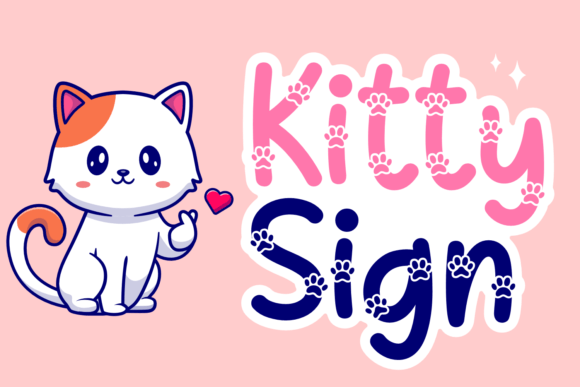
Meow-velous Typography: Discover the Whimsy of Kitty Sign Font
As a designer, have you ever been stuck trying to convey the perfect level of cuteness in a project? Maybe you’re working on a children’s book, a cat cafe’s branding, or a fun social media campaign. Whatever the case, I’m sure you’ve found yourself searching for the purr-fect font to bring a smile to your audience’s faces. That’s where the adorable Kitty Sign Font comes in – a delightful cat-themed decorative font that’s sure to capture hearts.
This PUA-encoded font is designed to add an extra touch of whimsy to any design project. With its little paws embellishing the characters, Kitty Sign Font is a valuable tool for designers looking to inject some playfulness into their work. Whether you’re a seasoned pro or just starting out, this font is sure to bring a smile to your face and make your designs stand out.
Kitty Sign Font Key Features
- Font Type: Kitty Sign is a display font, designed to be used for headings and titles.
- Character Set: Includes uppercase and lowercase letters, numbers, punctuation, and special characters.
- Unique Characteristics: Features a unique, playful design with rounded edges and whimsical details, making it perfect for children’s books, nursery decor, and other projects requiring a fun and approachable tone.
Kitty Sign Font Review
I’ve had the chance to work with the Kitty Sign Font, and I must say it’s a unique addition to any design project. ✨ One thing that stands out is its playful and whimsical feel, making it perfect for projects that need a touch of fun and personality. The font is also highly customizable, allowing you to adjust the color, size, and style to fit your needs.
Here are some of the key features that work well:
- Highly customizable with a range of options for color, size, and style
- Playful and whimsical feel that adds personality to any project
- Works well for titles, headings, and body text
- May not be suitable for formal or professional projects due to its playful nature
- Some users may find the font too bold or overwhelming
- May not be compatible with all devices or browsers
- Children’s party invitations
- Wedding invitations
- Food truck signs
Overall, I think the Kitty Sign Font is a great addition to any design project that needs a touch of fun and personality. While it may not be suitable for all projects, it’s definitely worth considering for those that need a playful and whimsical feel.
Tips for Getting the Most Out of the Kitty Sign Font
Experiment with different font sizes and colors to add visual interest to your design. Use the font in combination with other design elements, such as graphics and shapes, to create a unique look.
The Kitty Sign Font is perfect for creating playful and whimsical designs, such as:
Alternatives to Kitty Sign Font
Copperplate Script
Copperplate Script is a classic calligraphy font that mimics the look of handwritten copperplate script. It’s ideal for formal invitations, certificates, and other documents that require elegance and sophistication. Compared to Kitty Sign Font, Copperplate Script is more refined and less playful, making it suitable for more formal occasions.
Great Vibes is a modern script font that’s perfect for creative and artistic projects. It’s highly customizable and can be used for a wide range of applications, from logos to signage. Unlike Kitty Sign Font, Great Vibes has a more contemporary feel and is better suited for digital projects.
Carolyna Pro is a sophisticated script font that’s designed for luxury brands and high-end projects. It’s highly versatile and can be used for various applications, from fashion to hospitality. Compared to Kitty Sign Font, Carolyna Pro is more polished and refined, making it ideal for upscale branding and marketing materials.